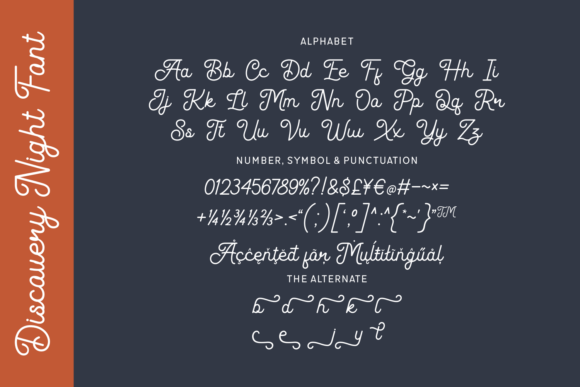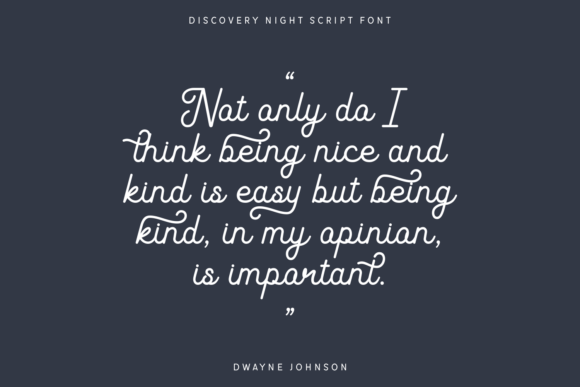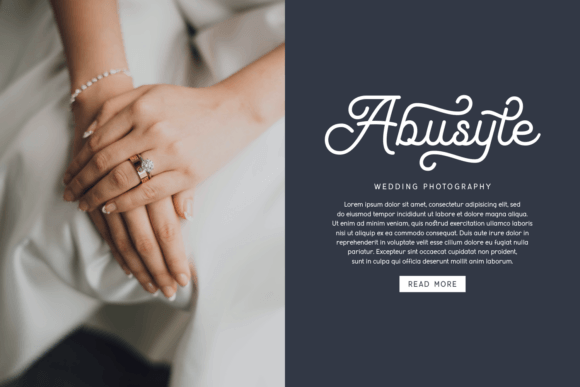
Discovery Night Font: Elevate Your Designs with Elegance and Sophistication
Are you on the hunt for a font that exudes elegance and sophistication? Look no further than the Discovery Night Font. This stunning monoline script font is designed to make your text look stylish and refined, perfect for a variety of design projects. In this article, we’ll dive into the features and benefits of the Discovery Night Font, and explore how you can use it to take your designs to the next level.
What is Discovery Night Font?
Discovery Night Font is a beautiful monoline script font that flows smoothly, making your text look elegant and stylish. It features thin, even lines that create a modern and clean appearance. This font is perfect for designers and crafters who want to add a touch of charm and sophistication to their projects. Whether you’re working on invitations, posters, branding, or any other design project, Discovery Night Font is sure to impress.
Key Features of Discovery Night Font
- Monoline Script Font: Discovery Night Font is a monoline script font, which means that it features smooth, connected lines that create a flowing and elegant appearance.
- Thin, Even Lines: The font features thin, even lines that create a modern and clean appearance. This makes it perfect for designs that require a touch of sophistication and elegance.
- Elegant and Stylish: Discovery Night Font is designed to make your text look elegant and stylish. It’s perfect for designs that require a high level of refinement and poise.
- Versatile: This font is versatile and can be used for a variety of design projects, including invitations, posters, branding, and more.
Benefits of Using Discovery Night Font
There are many benefits to using Discovery Night Font in your designs. Here are just a few:
- Adds Elegance and Sophistication: This font adds a touch of elegance and sophistication to any design project. It’s perfect for designers who want to create refined and polished designs.
- Improves Readability: The thin, even lines of Discovery Night Font make it easy to read, even at small sizes. This makes it perfect for designs that require a lot of text.
- Versatile: This font can be used for a variety of design projects, from invitations and posters to branding and packaging.
Design Ideas Using Discovery Night Font
Discovery Night Font is a versatile font that can be used for a variety of design projects. Here are some design ideas to get you started:
- Invitations: Use Discovery Night Font to create elegant and sophisticated invitations for weddings, parties, and other events.
- Posters: Create eye-catching posters using Discovery Night Font. This font is perfect for movie posters, event posters, and advertising posters.
- Branding: Use Discovery Night Font to create a sophisticated brand identity. This font is perfect for logos, business cards, and letterheads.
- Packaging: Use Discovery Night Font to create elegant and sophisticated packaging designs. This font is perfect for product labels, packaging inserts, and instruction manuals.
Discovery Night Font is a beautiful monoline script font that flows smoothly, making your text look elegant and stylish. With its thin, even lines and modern clean appearance, this font is perfect for designers and crafters who want to add a touch of charm and sophistication to their projects. Whether you’re working on invitations, posters, branding, or any other design project, Discovery Night Font is sure to impress. So why wait? Download Discovery Night Font today and take your designs to the next level.